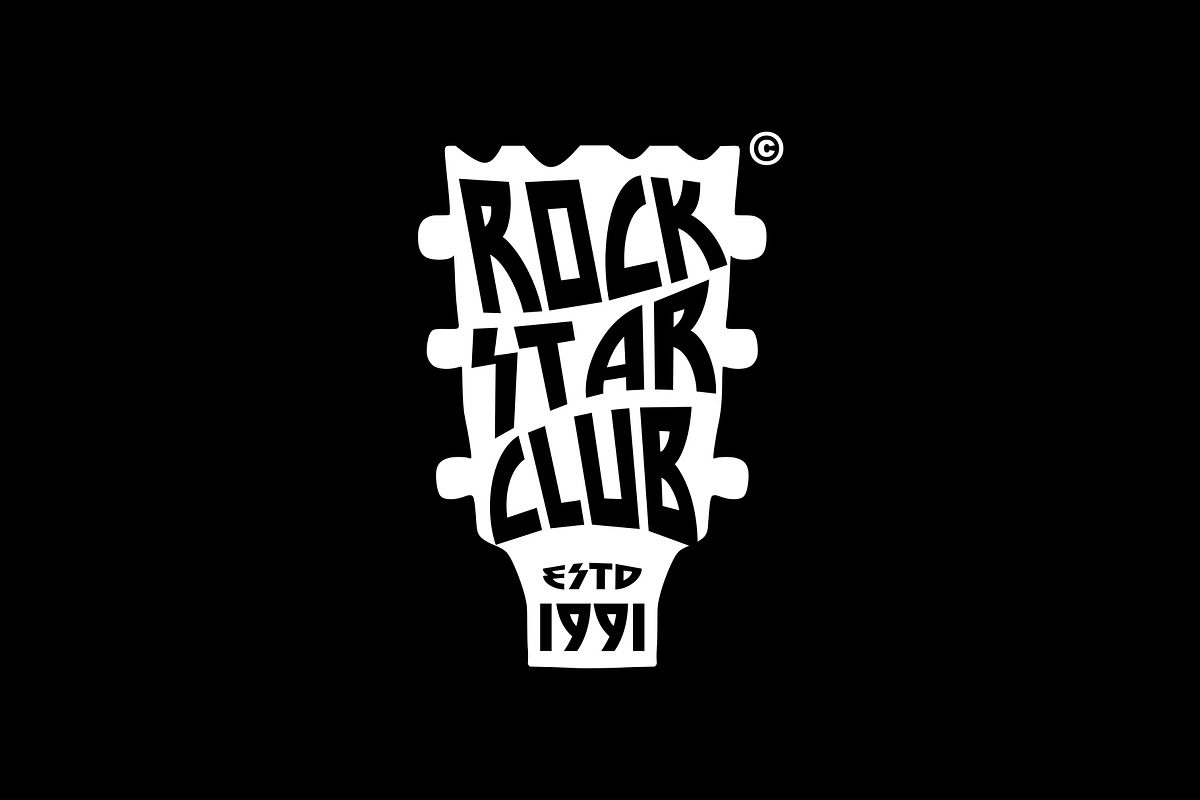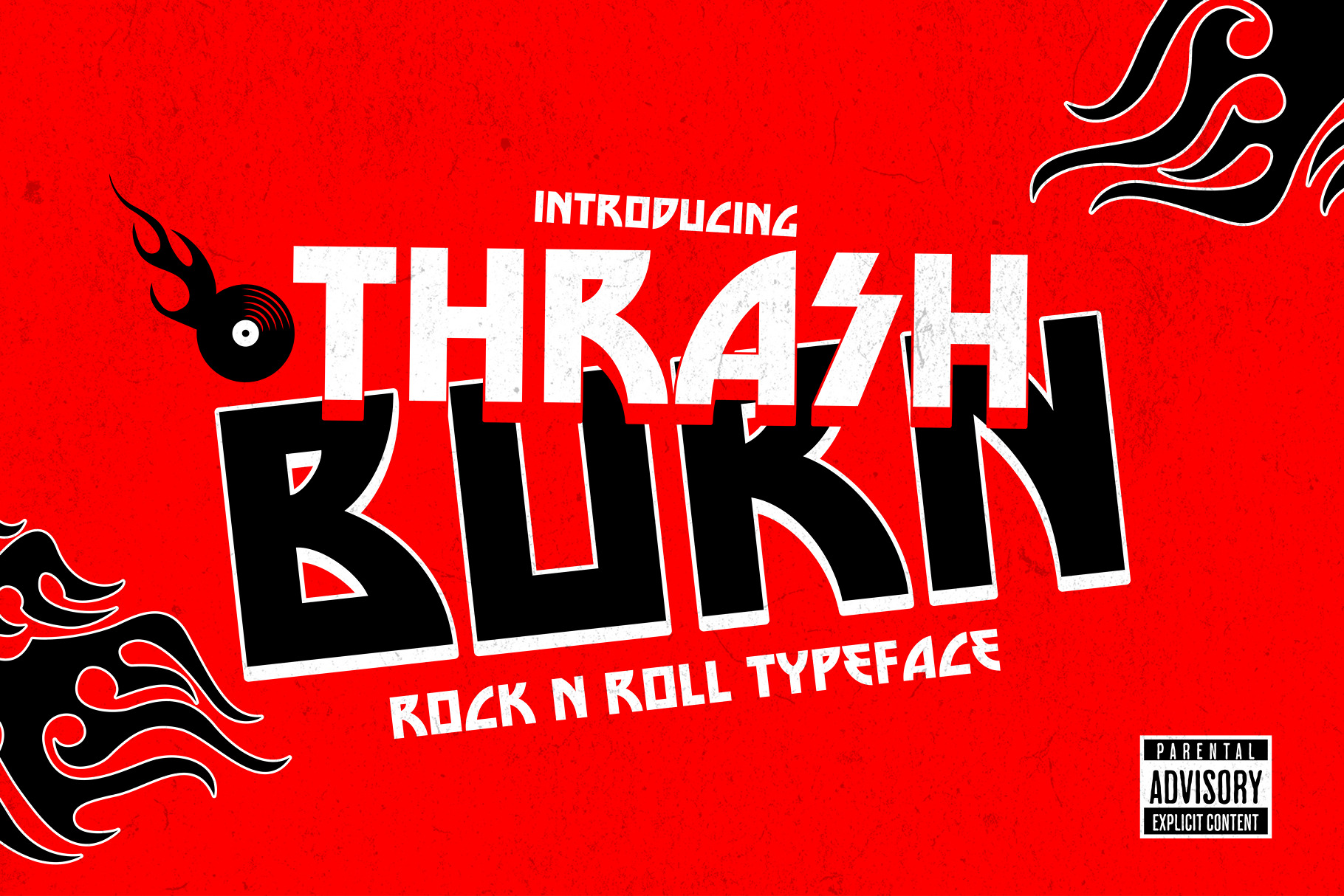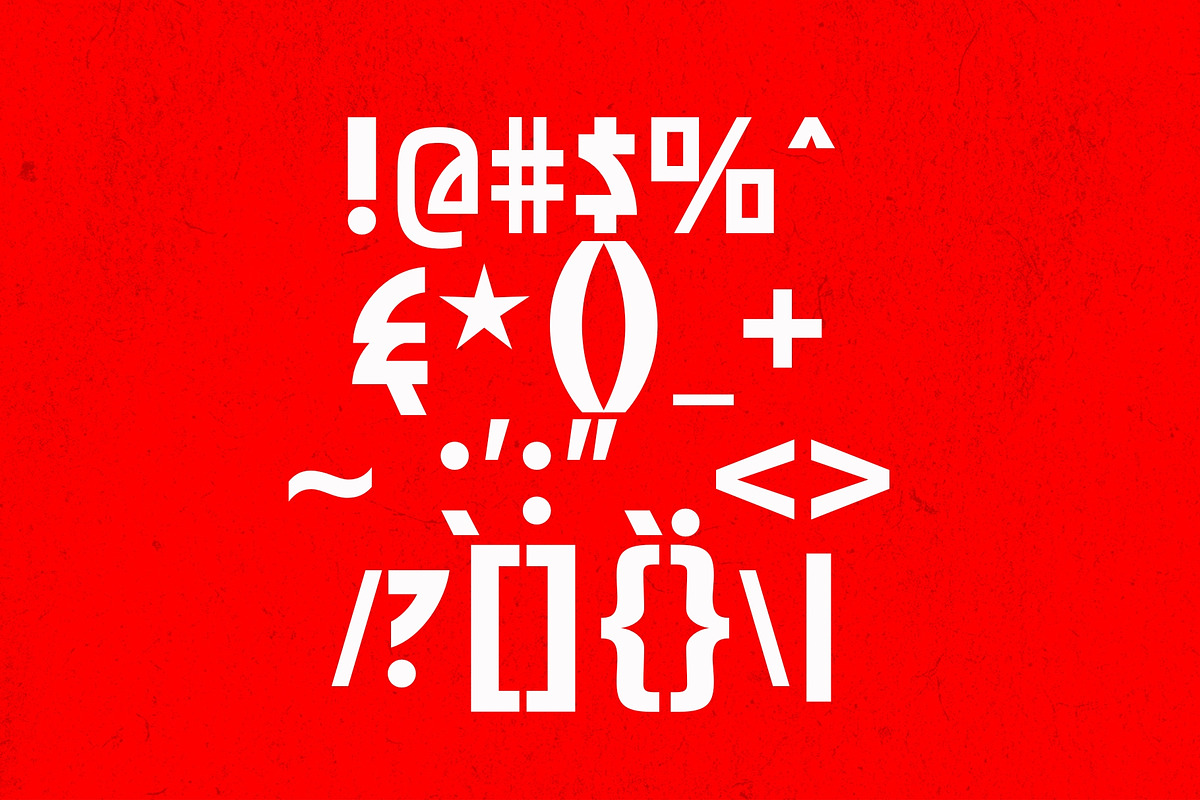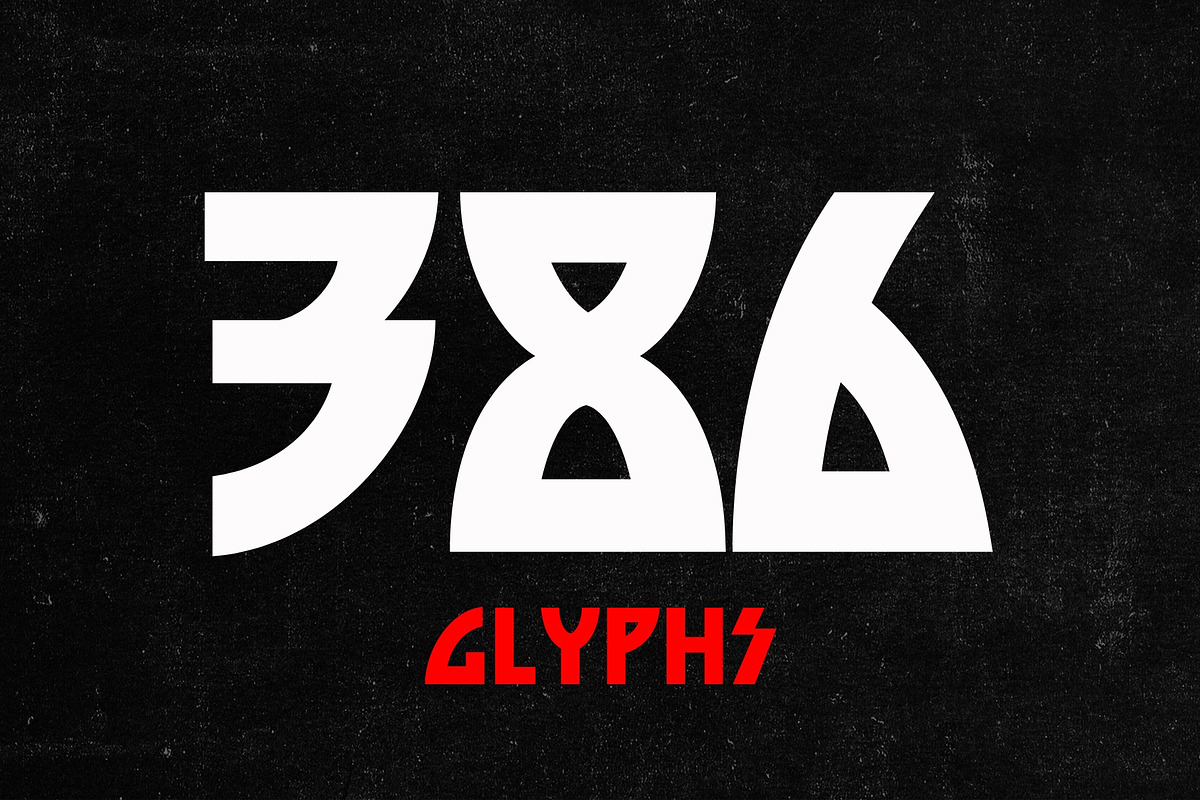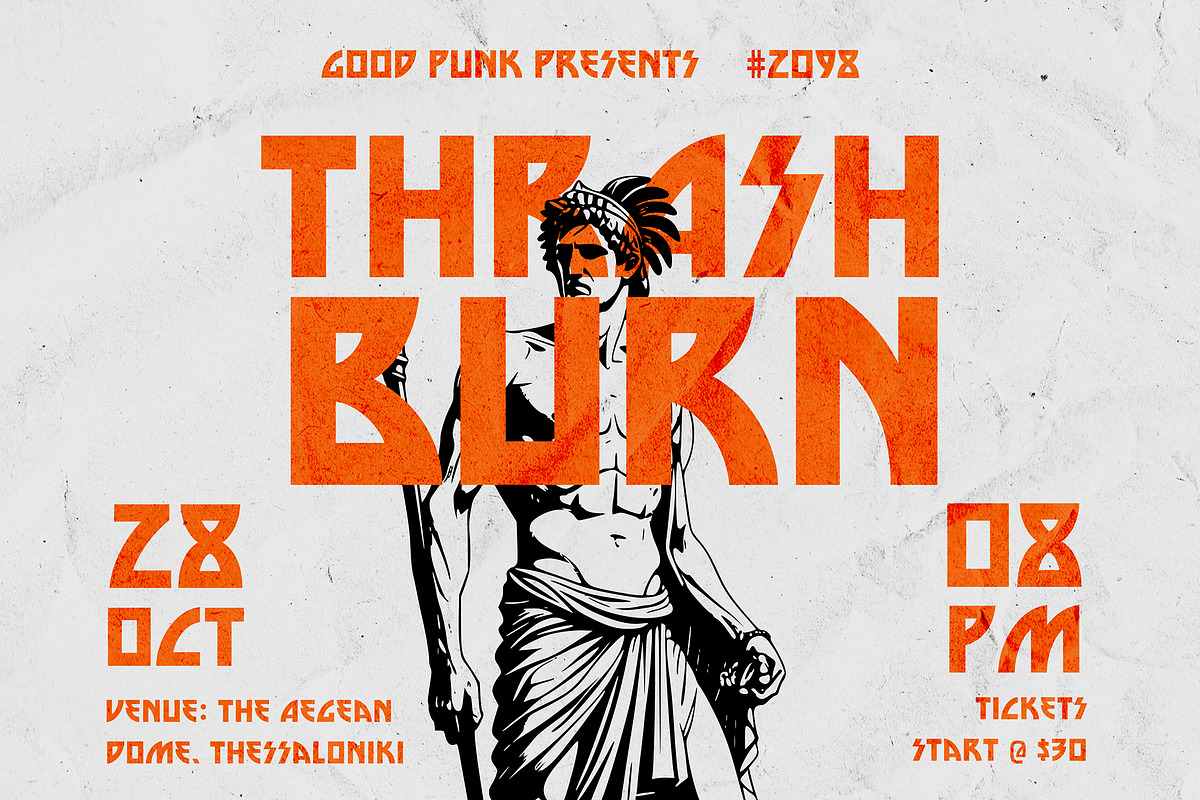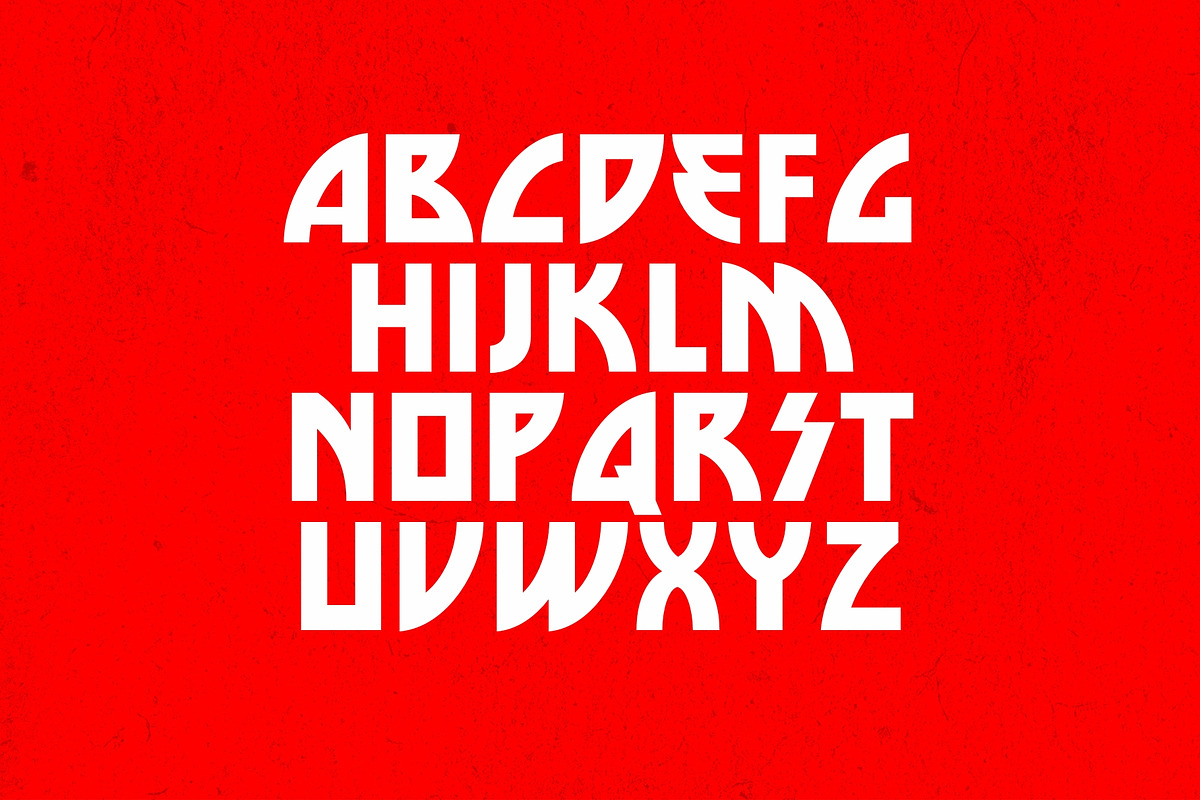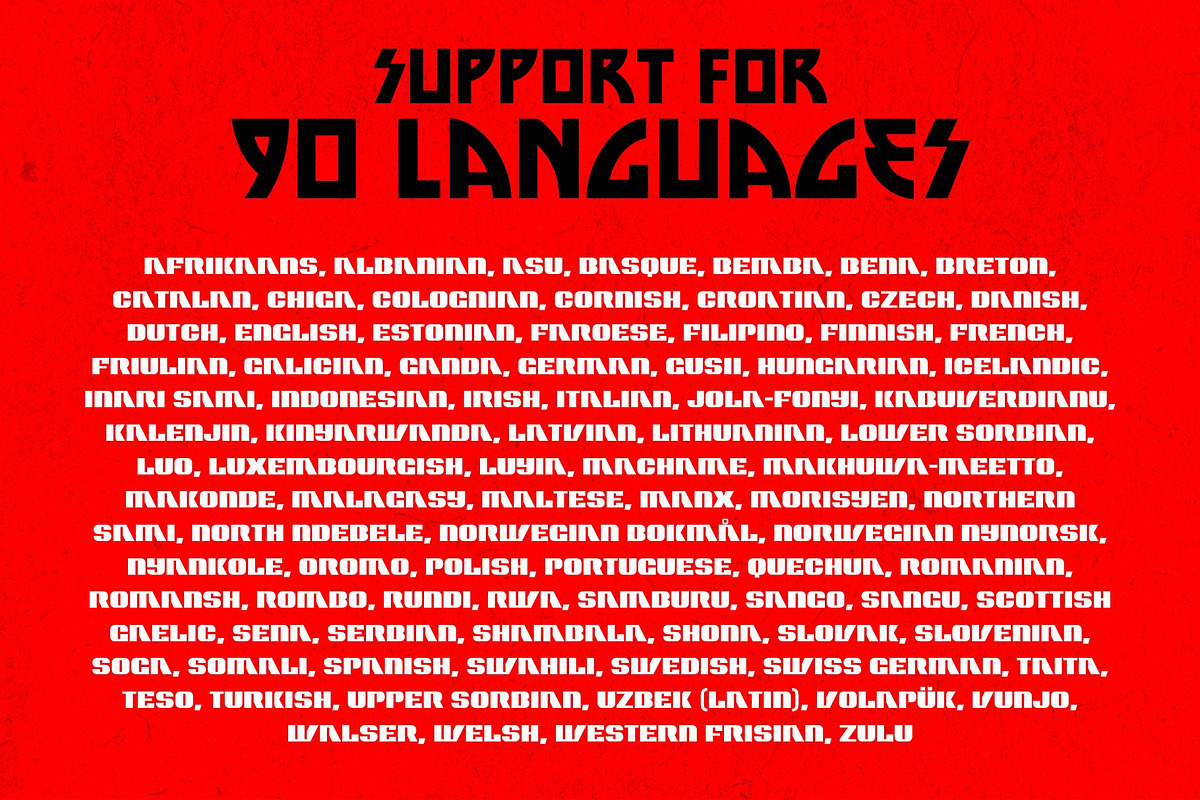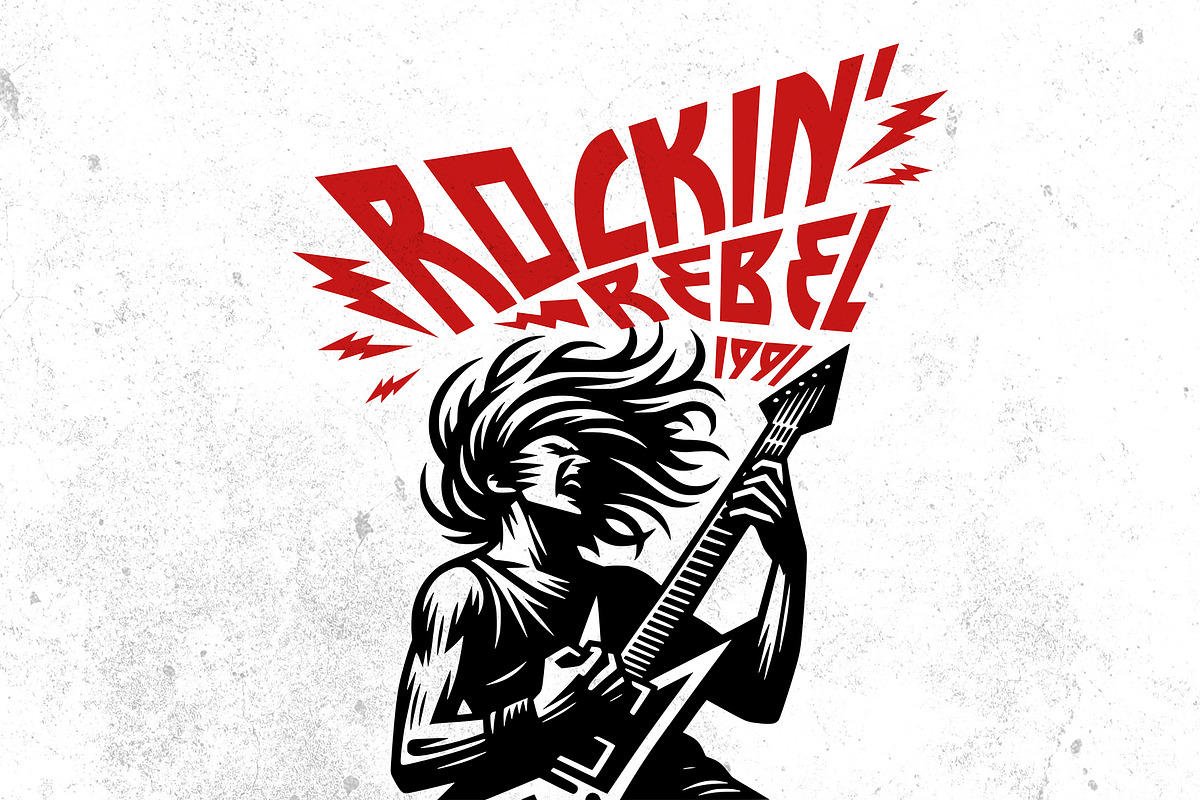
Thrash Burn - Rock n Roll Typeface
Unleash chaos with Thrash Burn, an edgy 1980s-inspired typeface forged in the fires of punk rock, rebellion, and underground grit. This isn't your average retro font, it's a full-throttle scream from the skateparks, dive bars, and anarchist zines of a louder, rougher era.
Raw, jagged, and unapologetically bold, Thrash Burn channels the energy of DIY concert posters, torn denim, and distorted guitar riffs. Whether you're designing for a punk album, a rebellious streetwear brand, or a social post that demands attention, this typeface delivers pure attitude in every letter.
- Concert posters & music flyers
- Punk rock album covers
- Skater-style branding
- Bold headlines & graphics
- Social media with an edge
Crank it up. Break the rules. Burn the trends. Thrash Burn is here to wreck the norm.